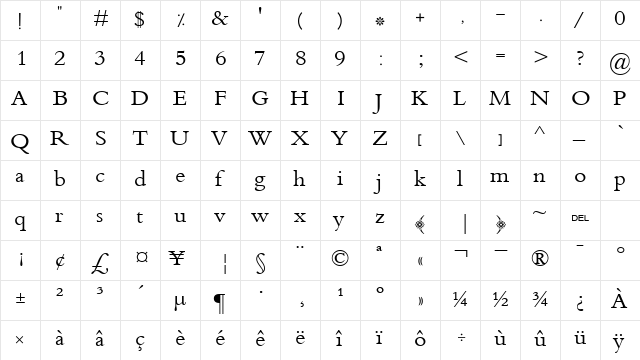
AL-Majd Regular
Design Context for AL-Majd Typeface
AL-Majd is a composed and adaptable typeface that performs quietly and consistently across a wide range of design contexts.
Pro Tip: Use AL-Majd in both headline and body roles to test its range before committing to a single application.